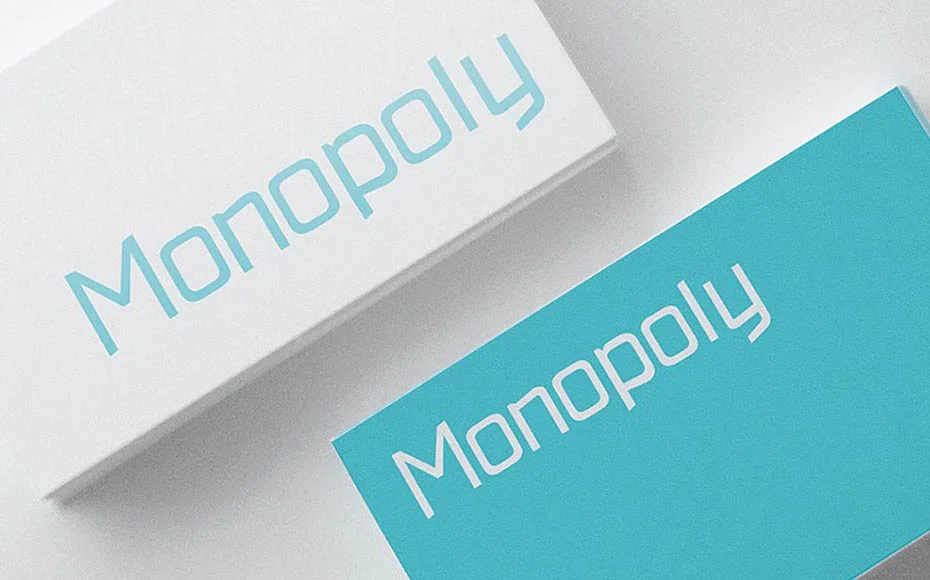
Monopoly Font is a basic sans serif font that comes with a modern simple texture. It has created by Hyun Seok Choi for the first time in 2016 along with Truetype features.
All basic features including height, width, kerning, and spaces are carefully designed. That’s why it gives a clean monolinear texture which can easily be useable in fonts pairs conditions.
This remarkable font is easily useable with serif, slab serif, and sans serif including Prata Font & Vidaloka Font. So, in big designs, you can surely take advantage of it and put an elegant look for sure.
It comes with three weights including Regular, Bold, and Inline Bold. Each weight has a large number of characters that provide a professional look to your upcoming designs for sure.
Font Name:Monopoly Font
Style:Basic, Sans Serif, Typeface
Font Designer:Hyun Seok Choi
When you look at its character map image then you realize that it contains neat and clean texture. So, this fine quality font is the best choice for professional and basic designs.
This font can help you to create covers, headlines, newspapers, product designs, product packaging, game graphics, unique emblems, web developments, and many other places.
This remarkable font can support more than 120 languages including Frisian, Genoese, and Ulithian. Due to this huge language support, its demand it really high all around the world.